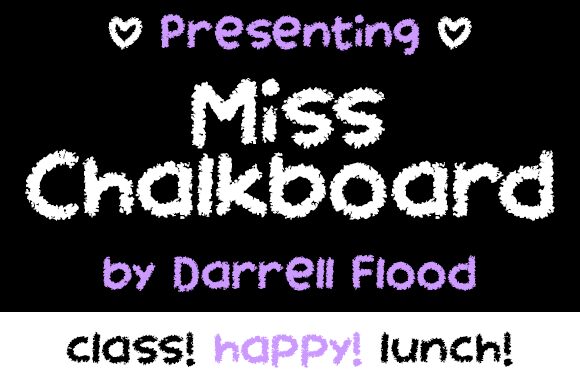
Unleash the bold, striking presence of Miss Chalkboard Italic, a dynamic script font that exudes an air of confidence and creativity. Crafted by renowned designer Darrell Flood or Iconian Fonts, this captivating typeface effortlessly blends the aesthetic of a chalkboard-inspired aesthetic with a bold, trash-inspired flair. Its distinctive letterforms and textured finish captivate the eye, infusing any design with a sense of authenticity and unique character.
Miss Chalkboard Italic's versatility makes it a compelling choice for a wide range of design projects, from handcrafted branding and packaging to impactful signage and editorial layouts. Its bold, expressive nature lends itself beautifully to eye-catching titles, headers, and display text, while its script-inspired flourishes can add a touch of personality to subheadings, captions, and more. Whether you're crafting a rustic-inspired website, designing a bold event invitation, or seeking to elevate the visual impact of your next project, Miss Chalkboard Italic is a Font Family that commands attention and leaves a lasting impression.